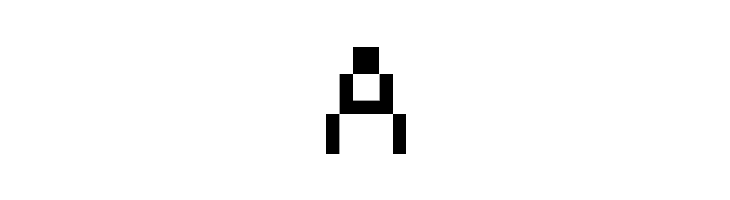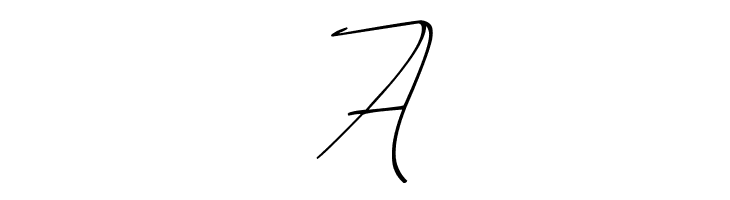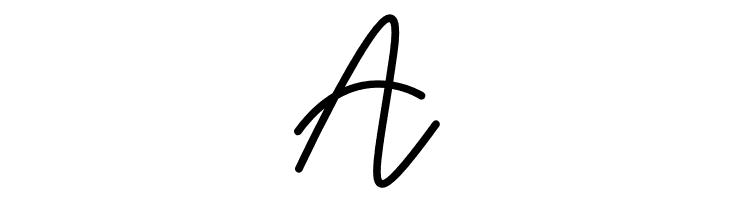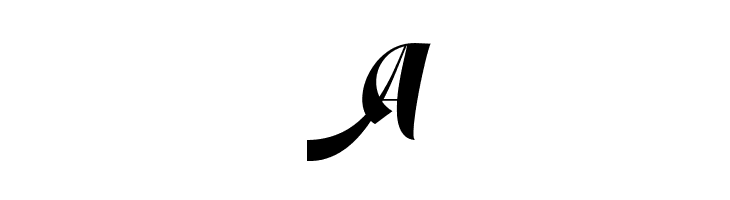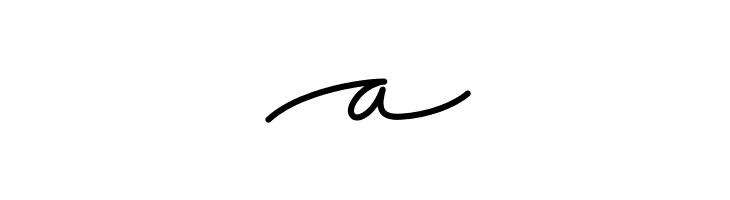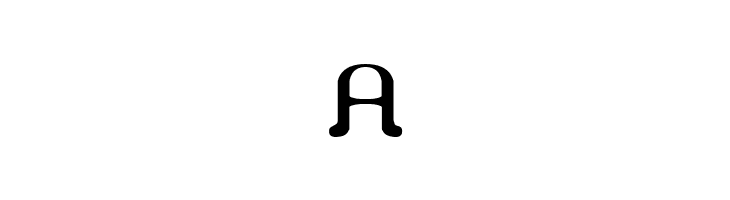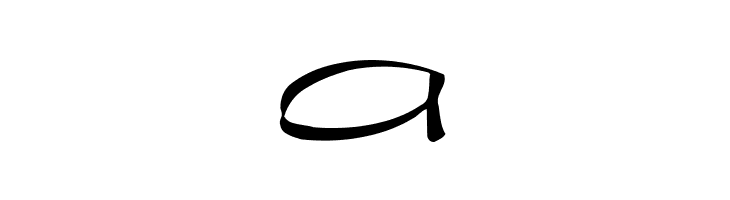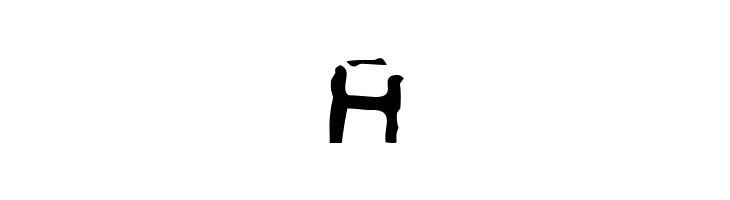
A flowing, elegant script font with a modern touch and decorative uppercase letters.
A graceful and sophisticated script font with flowing, interconnected letters.
A dynamic and flowing script font with elegant, cursive strokes.
An elegant, flowing script font with graceful, connected characters.
A bold, textured, hand-drawn font with a playful and artistic style.
A bold, expressive brushstroke font with dynamic and artistic flair.
A whimsical, flowing font with script and decorative elements.
A whimsical and elegant script font with flowing, cursive characters.
A bold, flowing script font with elegant curves and smooth connections.
A bold, grid-patterned display font with an architectural and technical design.
A playful, casual script font with smooth, flowing lines and a handwritten style.
A whimsical, cursive script font with elegant, flowing strokes.
A bold and elegant script font with dynamic, flowing strokes.
A graceful and fluid script font with elegant, cursive strokes.
A lively and dynamic script font with fluid, connected letterforms.
A flowing, elegant script font with bold, sweeping uppercase and smooth, slanted lowercase letters.
A pixelated, blocky font with a retro digital style.
A fluid, handwritten script font with a casual elegance.
A flowing, cursive script font with elegant, interconnected strokes.